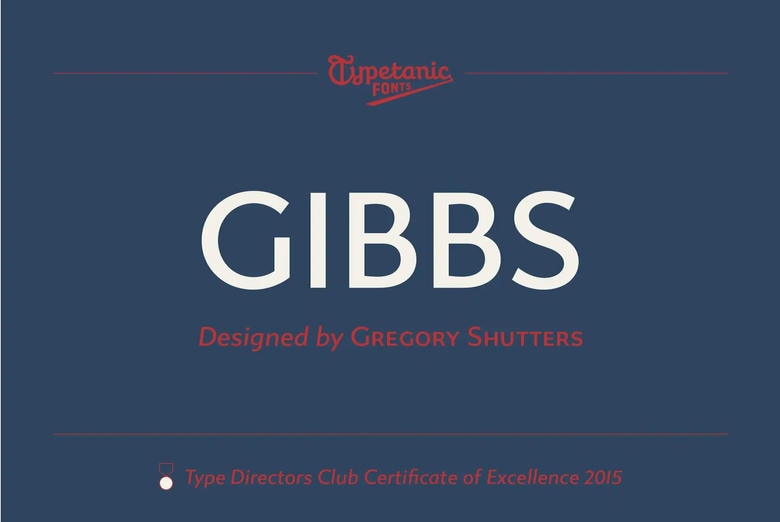
Gibbs Font Family
Gibbs Font Family is a hard, upscale sans, named after the prolific architect of the sea, Mr. William Francis Gibbs and inspired after his most distinguished creations the record breaking mid-century luxury SS United States. With a number of clues used to the individual cast aluminum signs on board, the effect is really transatlantic – between industrial American vernacular lettering and the English humanist types of Gill or Johnston. Stylish and quite comfortable to read, and containing a wide range of OpenType features, Gibbs gives you the ability to work at quality type without difficulty at both text and display sizes.
Gibbs Sans Serif Font Family